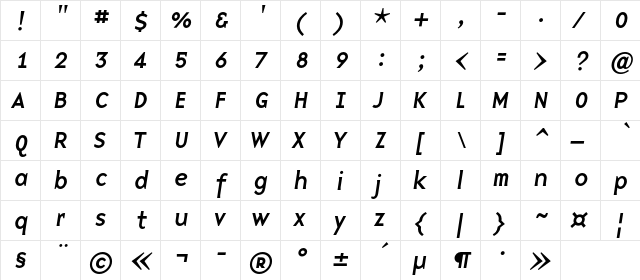
BaseNineC Italic
Design Context for BaseNineC Typeface
BaseNineC is a composed and adaptable typeface that performs quietly and consistently across a wide range of design contexts. Its italic angle brings a sense of urgency and motion to the letterforms.
Pro Tip: Try BaseNineC for annotation and caption copy alongside an upright companion — the contrast in angle creates a dynamic but ordered typographic system.